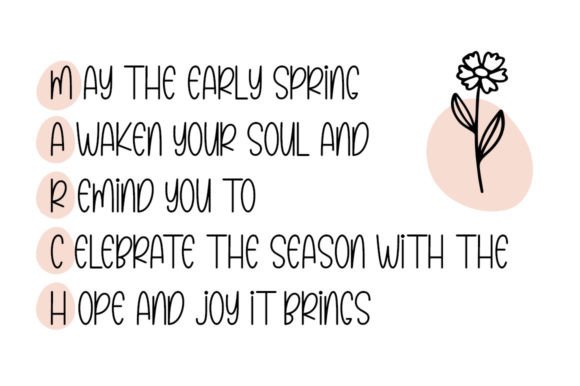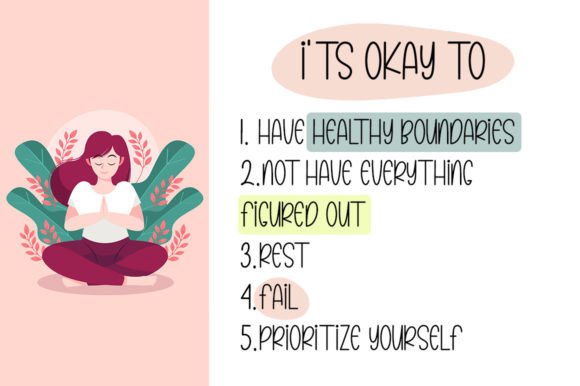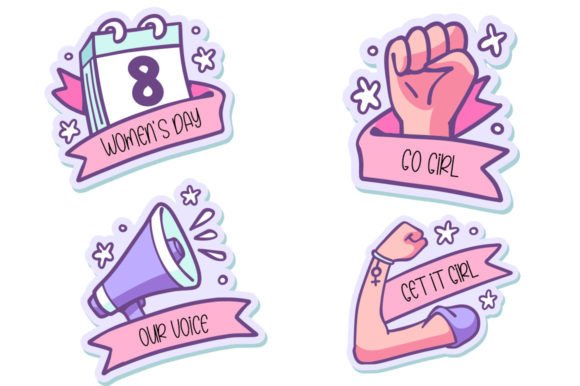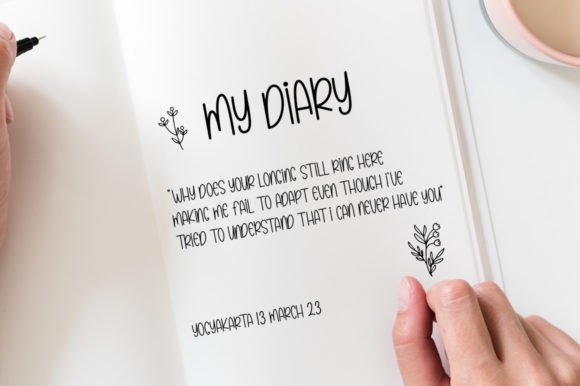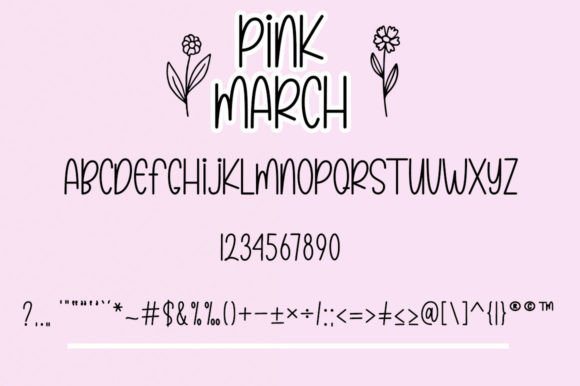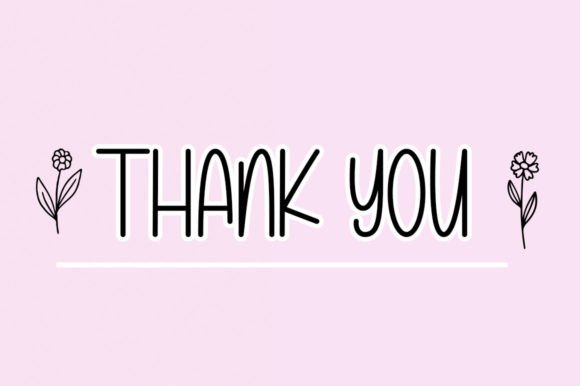
Introduction to Pink March Font
Have you ever been working on a creative project and suddenly, you can’t seem to find the perfect font to match your design? It’s like trying to find a needle in a haystack – frustrating and time-consuming. But what if I told you there’s a font that can solve this problem and elevate your project to the next level?
Enter the Pink March Font, a minimalist and neat handwritten font that’s perfect for a wide range of creative projects. With its clean lines and elegant design, this font is sure to add a touch of sophistication to your designs. Whether you’re working on a design project, creating a logo, or developing a brand identity, the Pink March Font is a valuable resource that’s sure to inspire your creativity.
Key Features of Pink March Font
- High-quality, vector-based design resource ideal for creative projects.
- Features a unique, elegant design style perfect for branding, packaging, and other visual identity projects.
- Perfect for designers and artists looking for a distinctive, high-quality font to elevate their creative projects.
Honest Review: Pink March Font
As a designer, I’m always on the lookout for unique and high-quality design resources to elevate my creative projects. The Pink March Font is one such resource that caught my attention, and I’m excited to share my honest review with you.
- ✨ Unique and feminine design style that’s perfect for branding and packaging projects
- ⚠️ Limited character set, which may not be suitable for longer text-based projects
- ⚠️ May not be as versatile as other fonts, but still great for specific design projects
Pink March Font
Tips for Getting the Most Out of the Pink March Font
To get the most out of the Pink March Font, use it in high-quality designs and pair it with other high-quality design elements. Experiment with different font sizes, colors, and styles to create a unique and eye-catching design. You can also use the font in combination with other design resources, such as images and graphics, to create a cohesive and professional-looking design.
The Pink March Font is commonly used in designs that require a playful and feminine touch, such as wedding invitations, baby shower invitations, and social media graphics. It’s also a great choice for designs that require a high-quality, elegant font, such as business cards, brochures, and presentations.